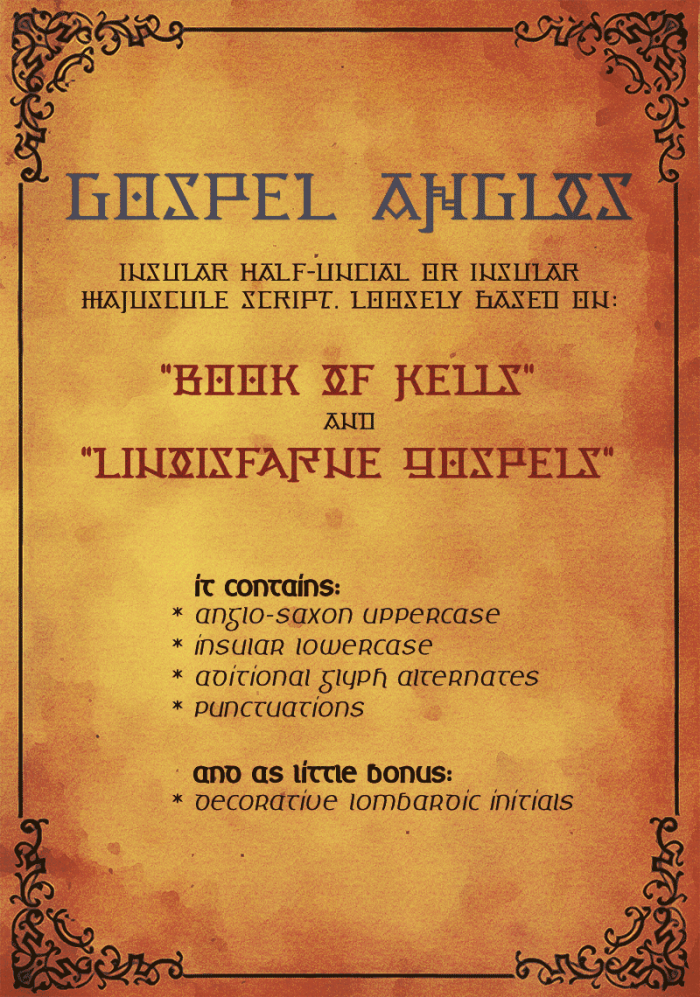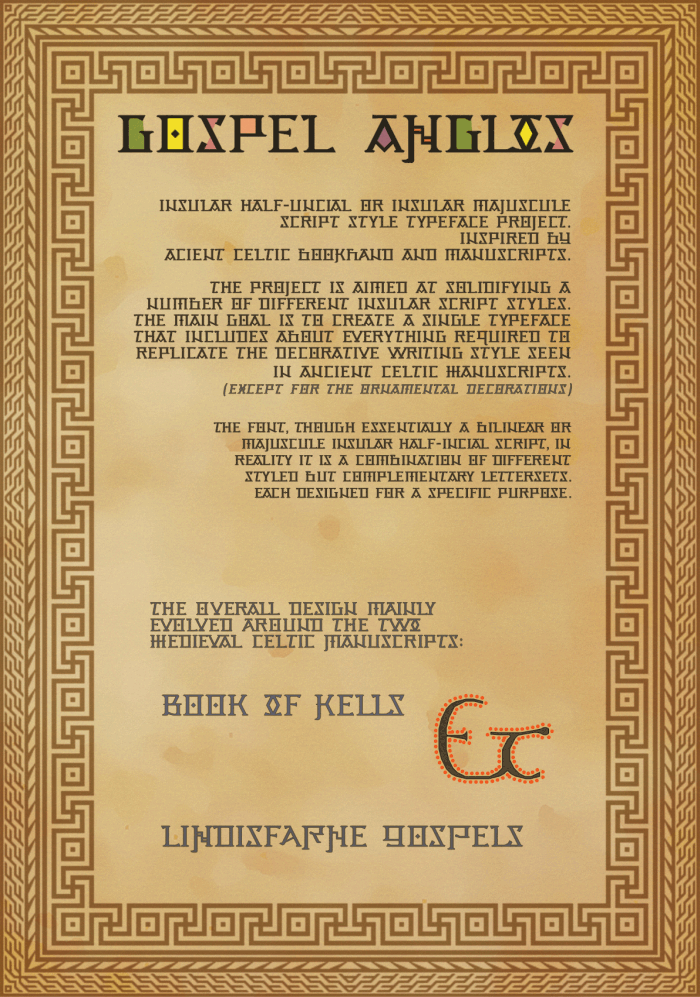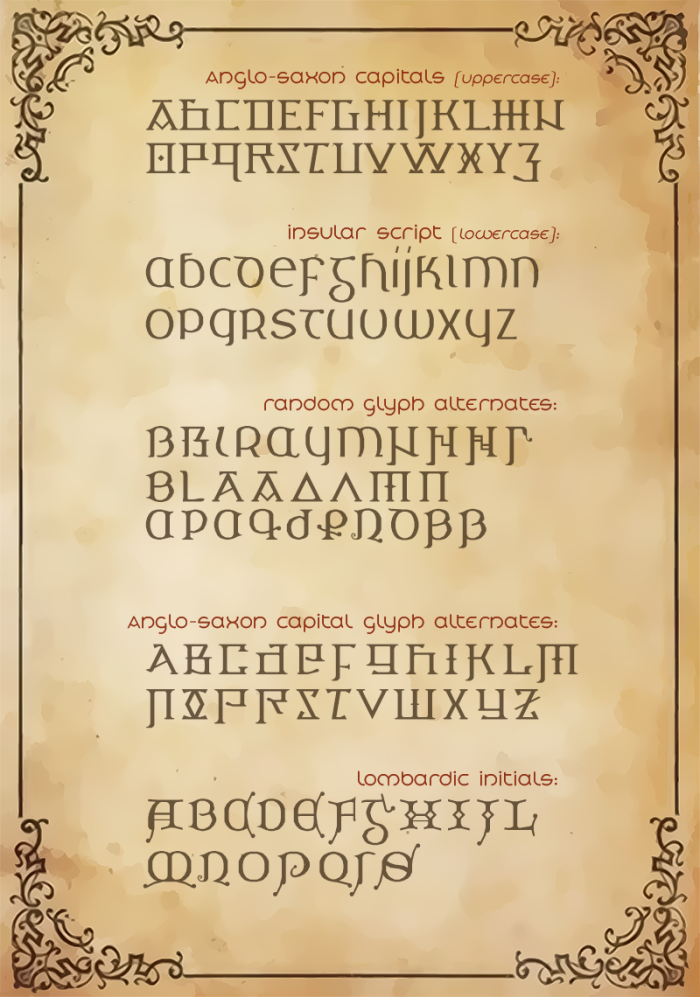
• GOSPEL ANGLOS
A insular half-uncial or insular majuscule script style typeface project that is inspired by ancient celtic bookhand & manuscripts.
The project is aiming at solidifying a number of different insular script styles. The main goal is to create a single typeface that includes about everything required to replicate the decorative writing style seen in ancient celtic manuscripts.(except for the ornamental decoratives)
The font, though essentially a bi-linear or majuscule insular half-incial script, in reality is a combination of different styles and complementary lettersets. Each carefully designed for specific purpose.
For example, it includes a more decorative Anglo-Saxon-script capital letter, perfect for headline text or book bindings. These actually include a small number of short ascending / descending letters, but it remains mainly a majuscule. Then there is a complete insular style lowercase set, but which resembles a more traditional style lowercase letterform. And instead of being proportional sized, these reflect the cap-height, remaining faithful to the bi-linear nature of the script.
Besides all that, there is a set of glyph-alternates for most of the Anglo-Saxon capitals, as well as numerous random stylistic glyph alternates scattered througout some other various unicode blocks.  Providing more than enough options to make variations.
To top it all off, I started making a set of more decorative lombardic initial letters, perfect for decorating paragraphs.
(This remains a WIP for now, as I am still experimenting aound with different styles and bits to narrow down the right one that suits this total package)
I like how some of these characters turned out, but many are jiust ideas and not yet reached their definitive forms. But this set proved a lot more difficult than I had anticipated. So,
Any suggestions helping me to complete the full set are very much welcome..
The major recources and guidelines for the creation of this project mainly evolved around the two medieval celtic manuscripts:
"Book of kells" and "Liɴdisfarne Gospels"
It has grown quite a bit already so far, but remains a WIP.
So beware of very little overall polishing or kerning.
The overall design has quite some rough character, even more so with the insular lowercase set, that obviously was not aimed at smooth edges. Actually the oposite, sort of trying to replicate that rough look seen with many scribes from that era.
But I would love to hear your opinions (or suggestions for that matter) on the work so far. I can really use a little refreshing vibes for this at this point.